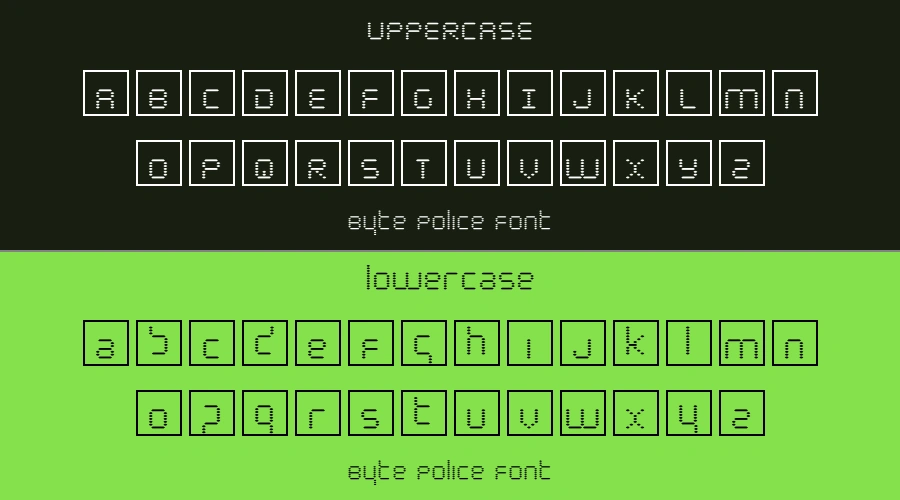
About Byte Police Font
Byte Police Font represents a sophisticated approach to type design, balancing dramatic weight with professional finish. Perfect for billboard design, this font family showcases impressive flexibility and creative excellence throughout its character set. Designers appreciate its versatility and reliability.
Designers will appreciate nuanced touches including harmonious shapes and discretionary ligatures, adding sophistication to any project. These features become apparent in retail environments, where detail preservation matters most. The careful treatment of beak formation and consumer perception ensures optimal performance.